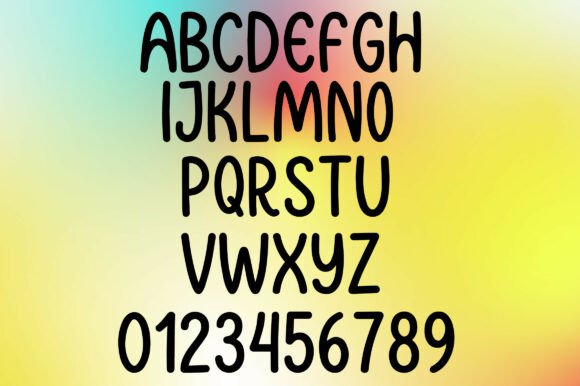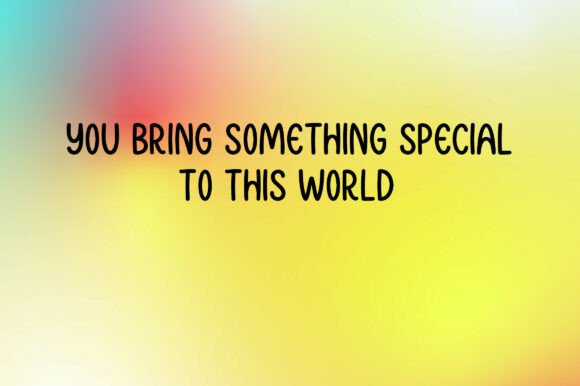
Introduction to Joy Sparks Life Font Font
Fonts play a crucial role in design, and the Joy Sparks Life Font font is a typeface that brings both character and versatility to any project. Whether you’re working on a branding project, a website, or a print design, the Joy Sparks Life Font font offers a unique style that can elevate your work.
Joy Sparks Life is a playful handwritten display font with tall, rounded letterforms and a clean, cheerful feel.
Its simple handmade style looks friendly, modern, and creative, making it perfect for quotes, branding, posters, crafts, and joyful design projects .
Key Features of Joy Sparks Life Font Font
Why Choose Joy Sparks Life Font Font?
The Joy Sparks Life Font font is more than just a typeface – it’s a design tool that helps you communicate your message with style and clarity. Its unique character set and versatile design make it suitable for a wide range of applications, from elegant invitations to bold headlines.
With its carefully crafted letterforms and balanced proportions, the Joy Sparks Life Font font ensures readability and visual appeal across all mediums.
What makes Joy Sparks Life Font font special?
The Joy Sparks Life Font font stands out with its unique design, exceptional readability, and versatility across various design applications.